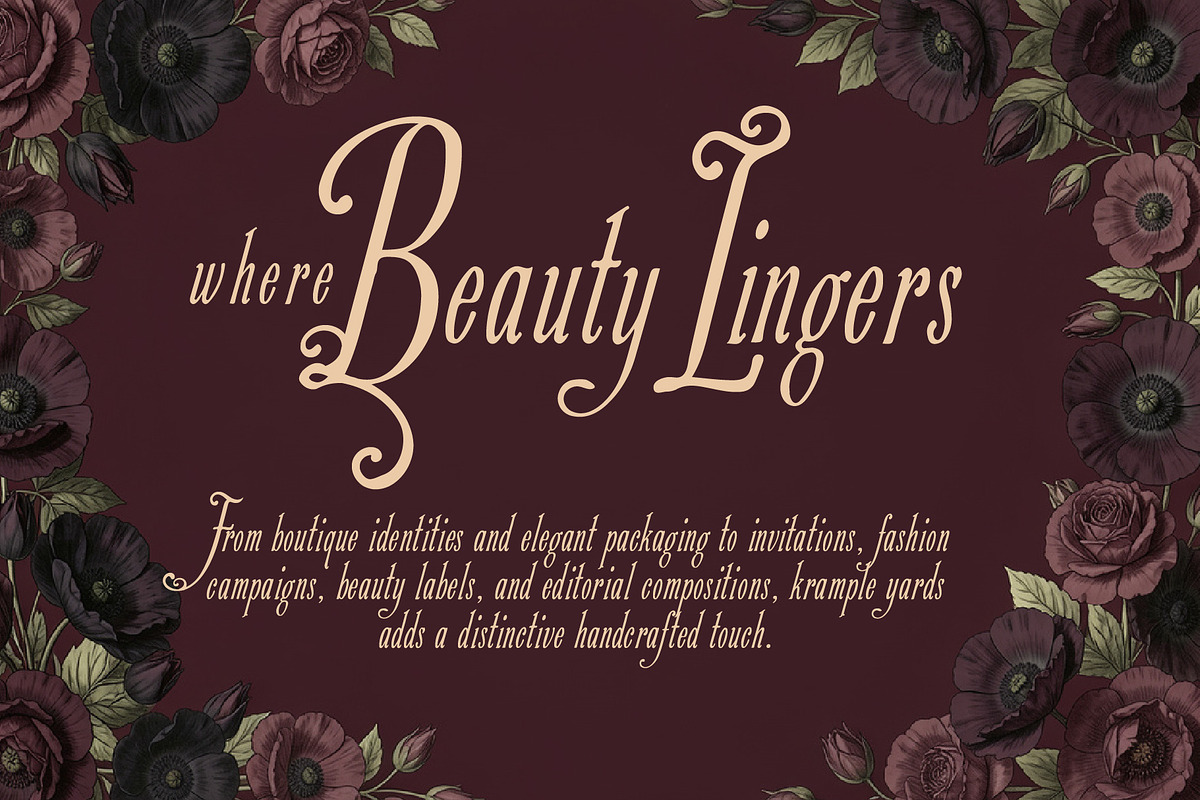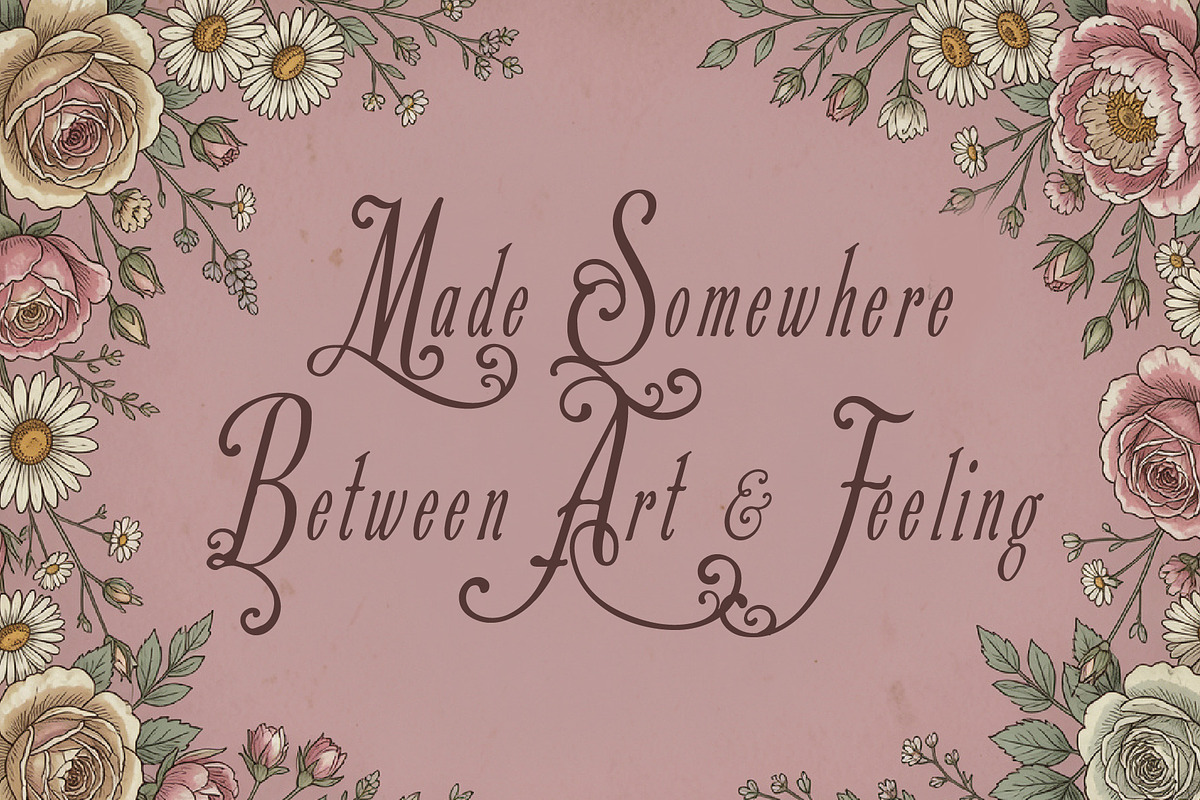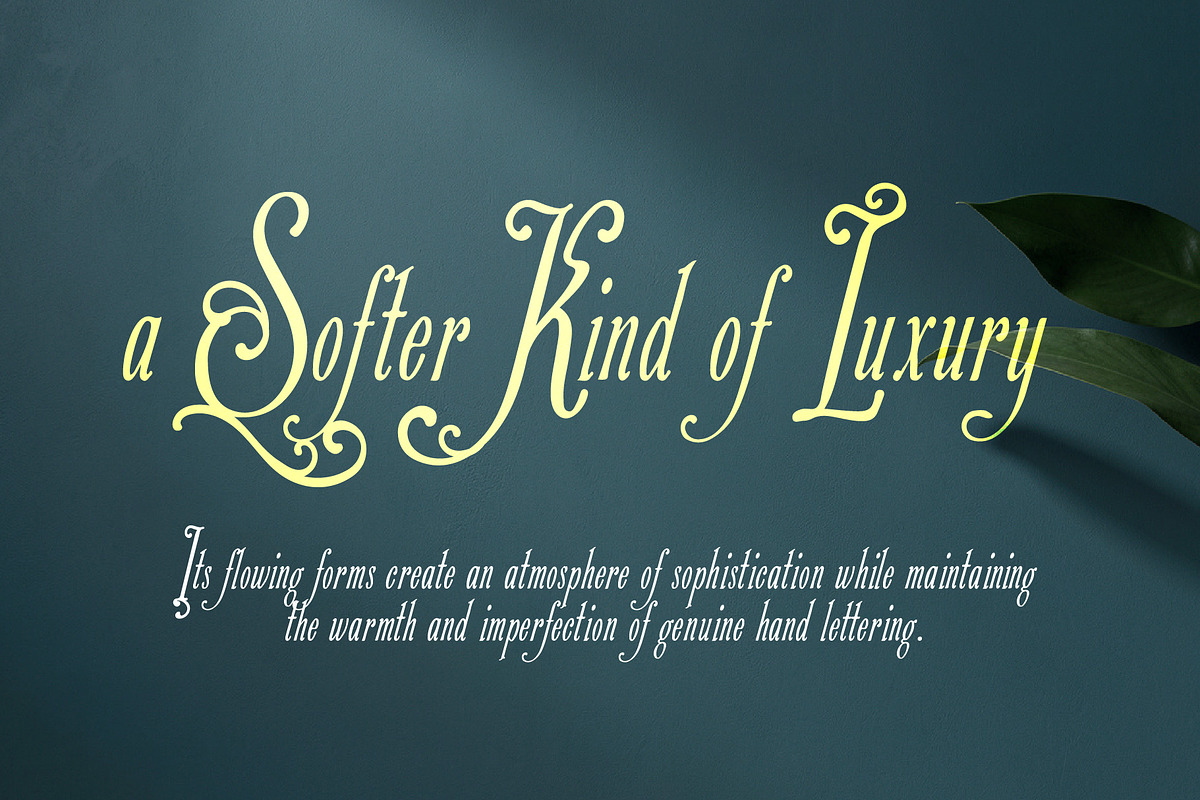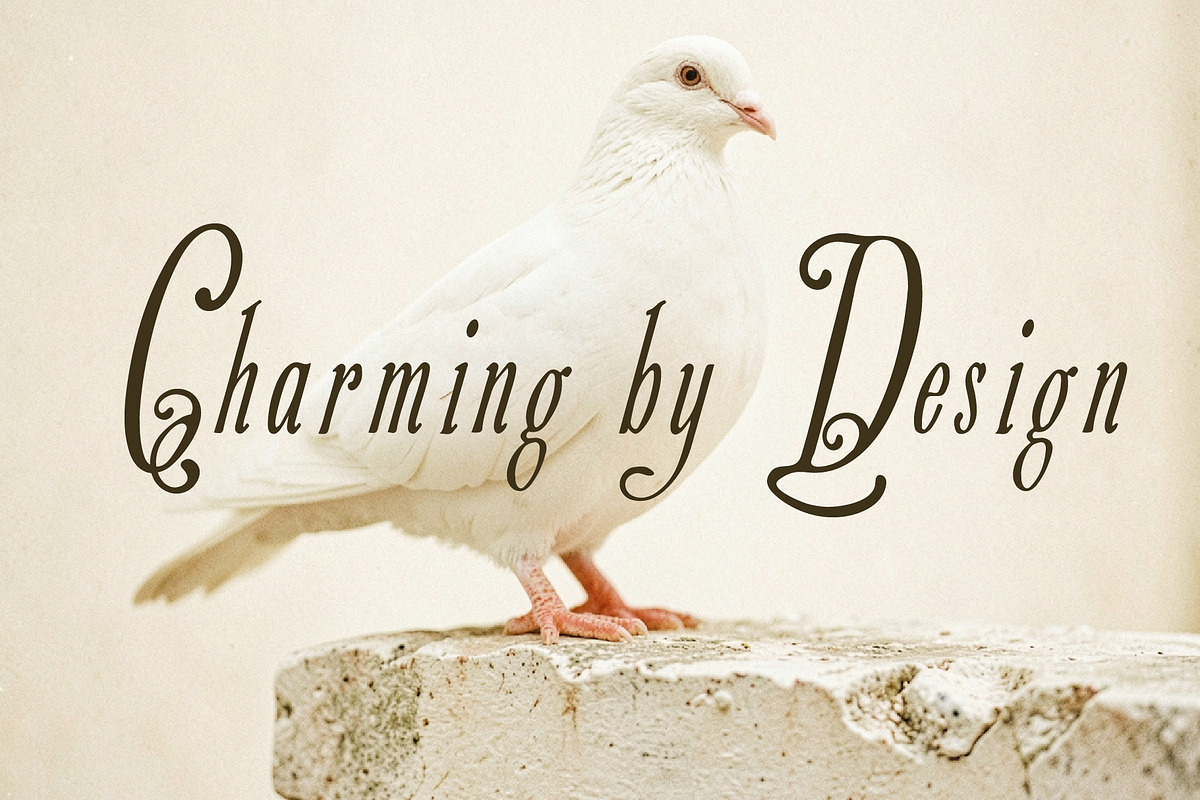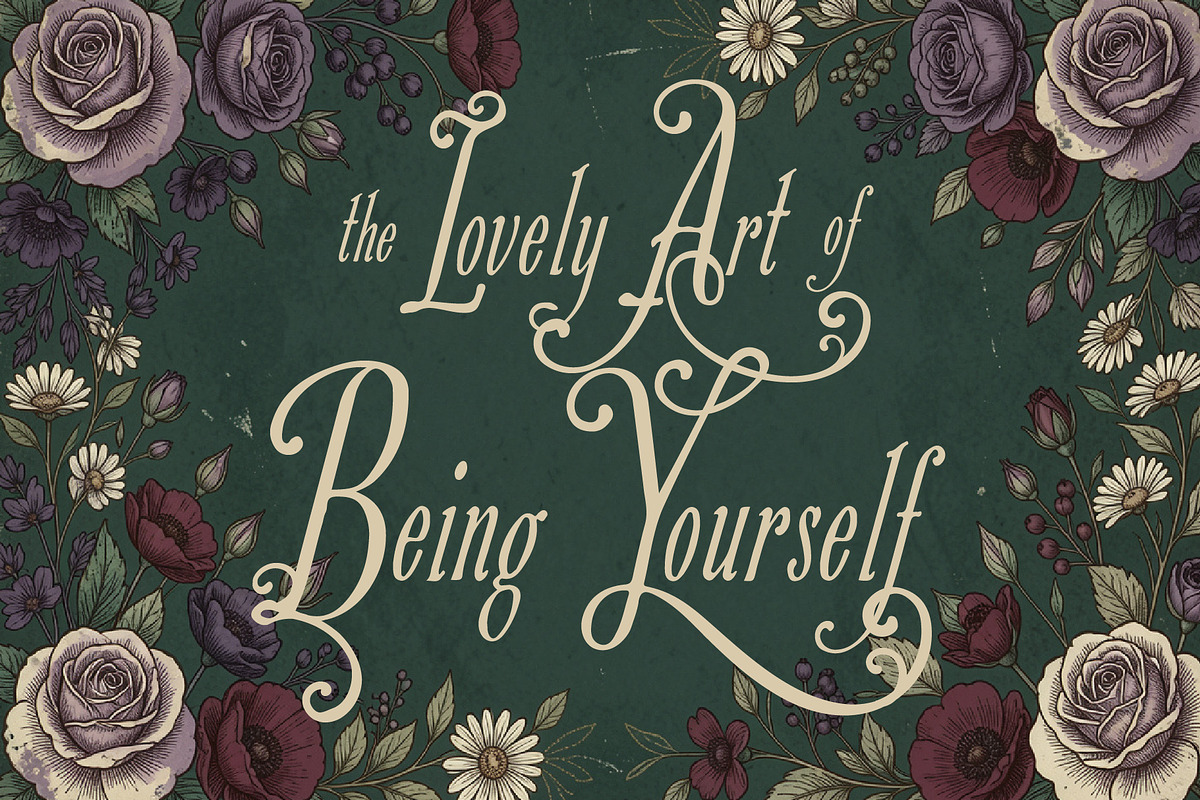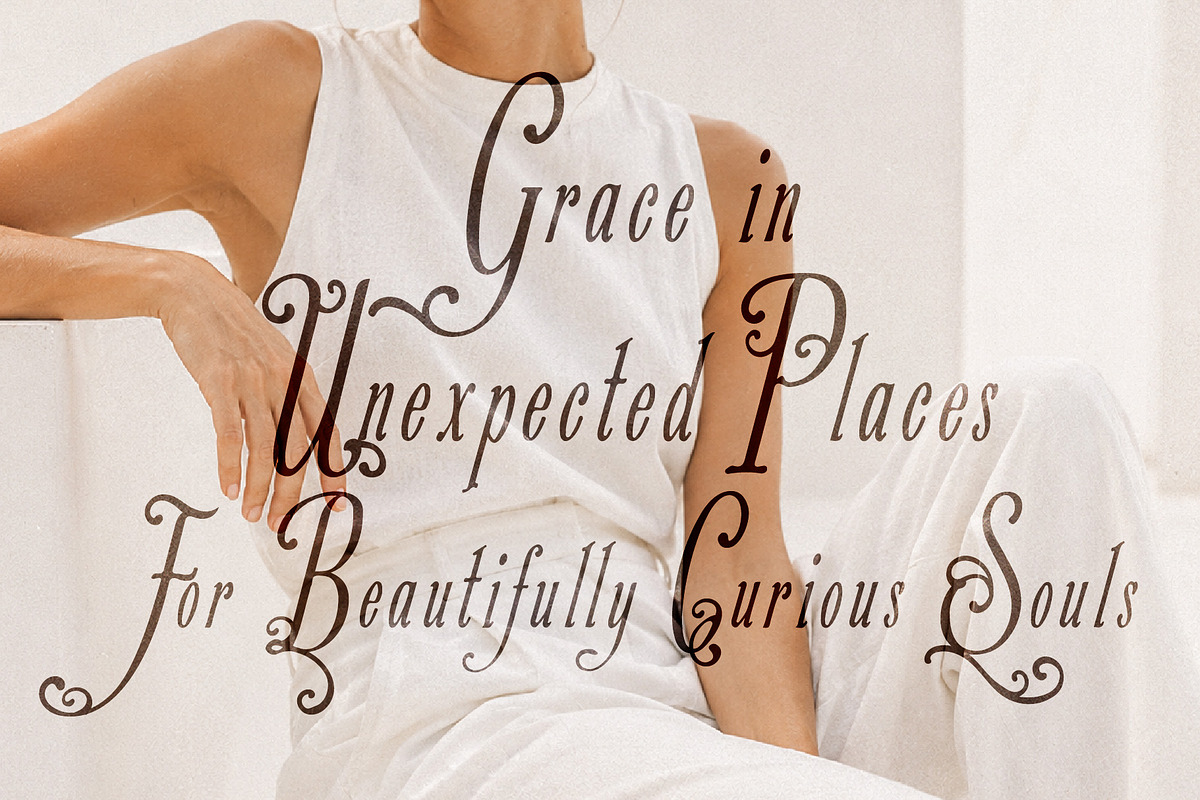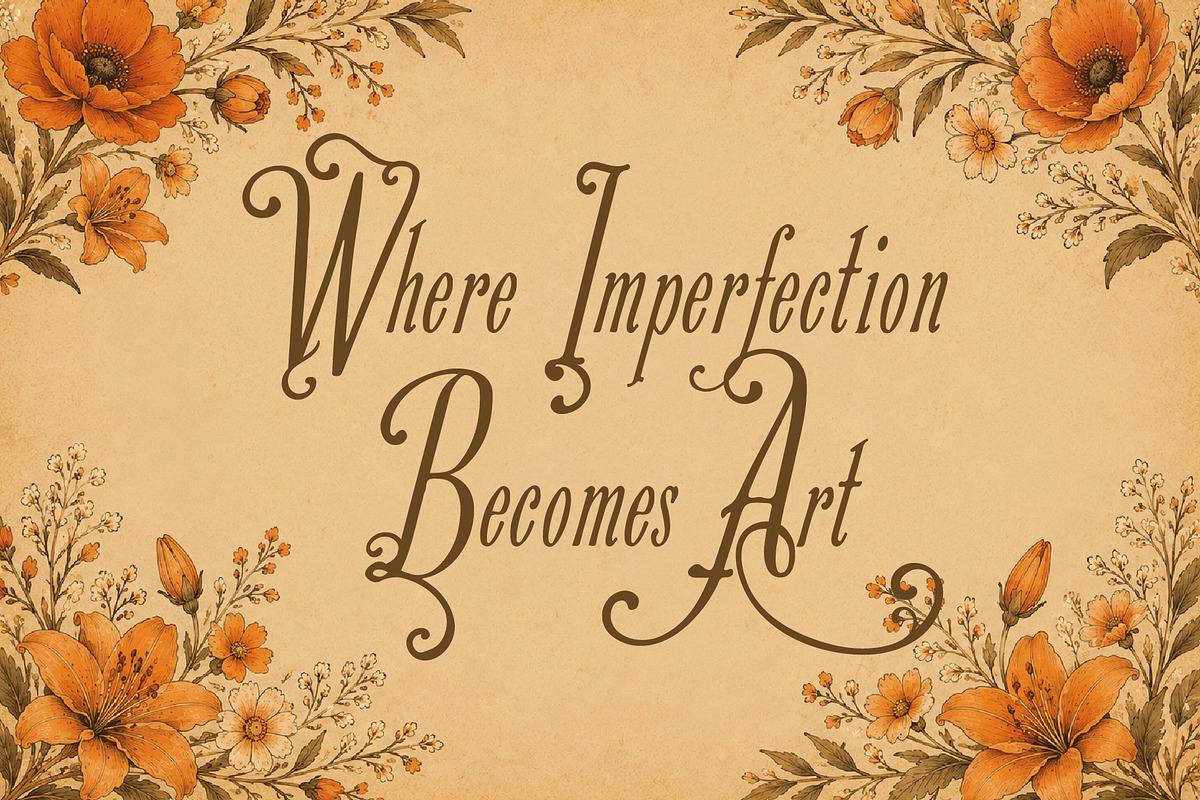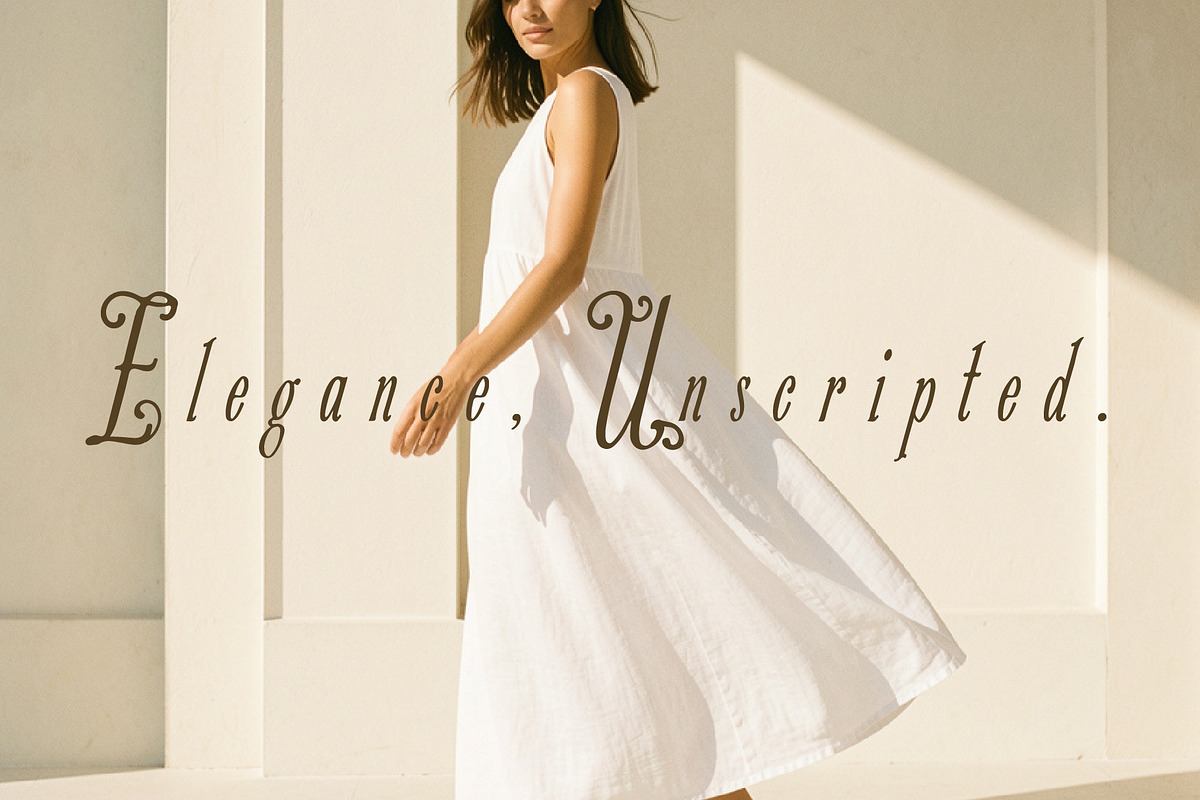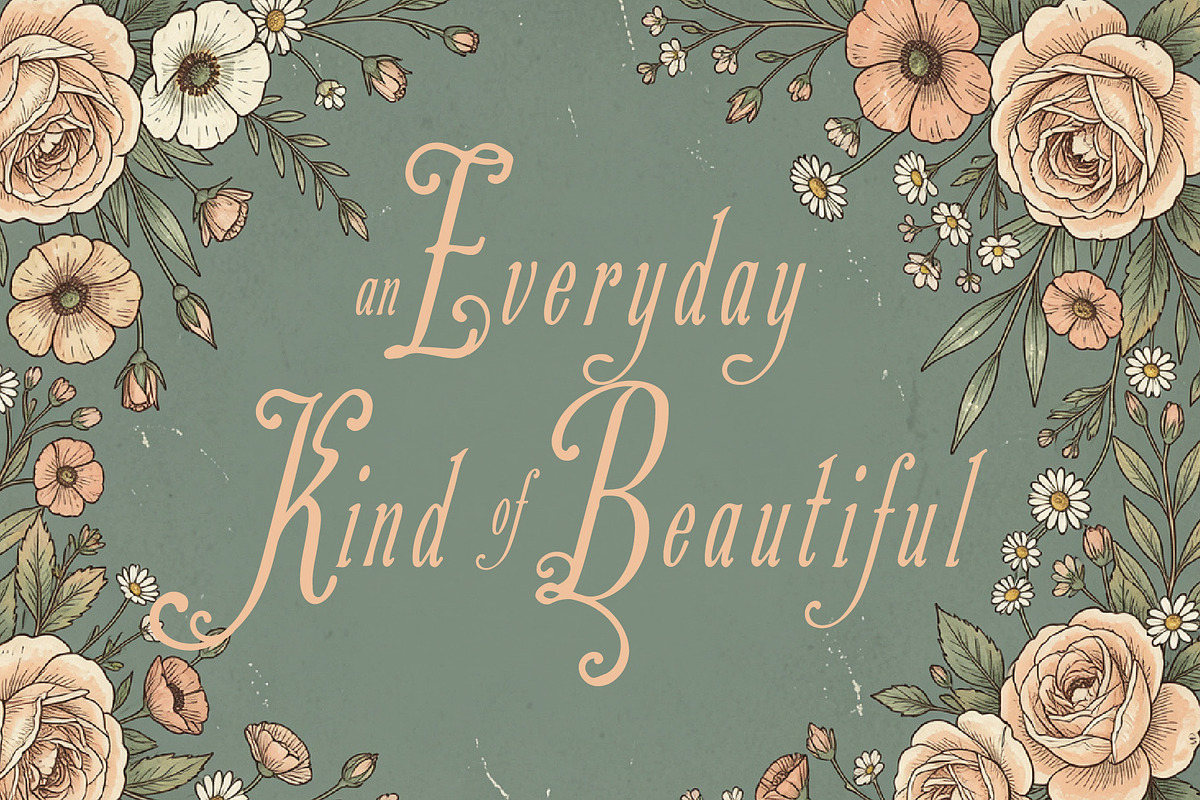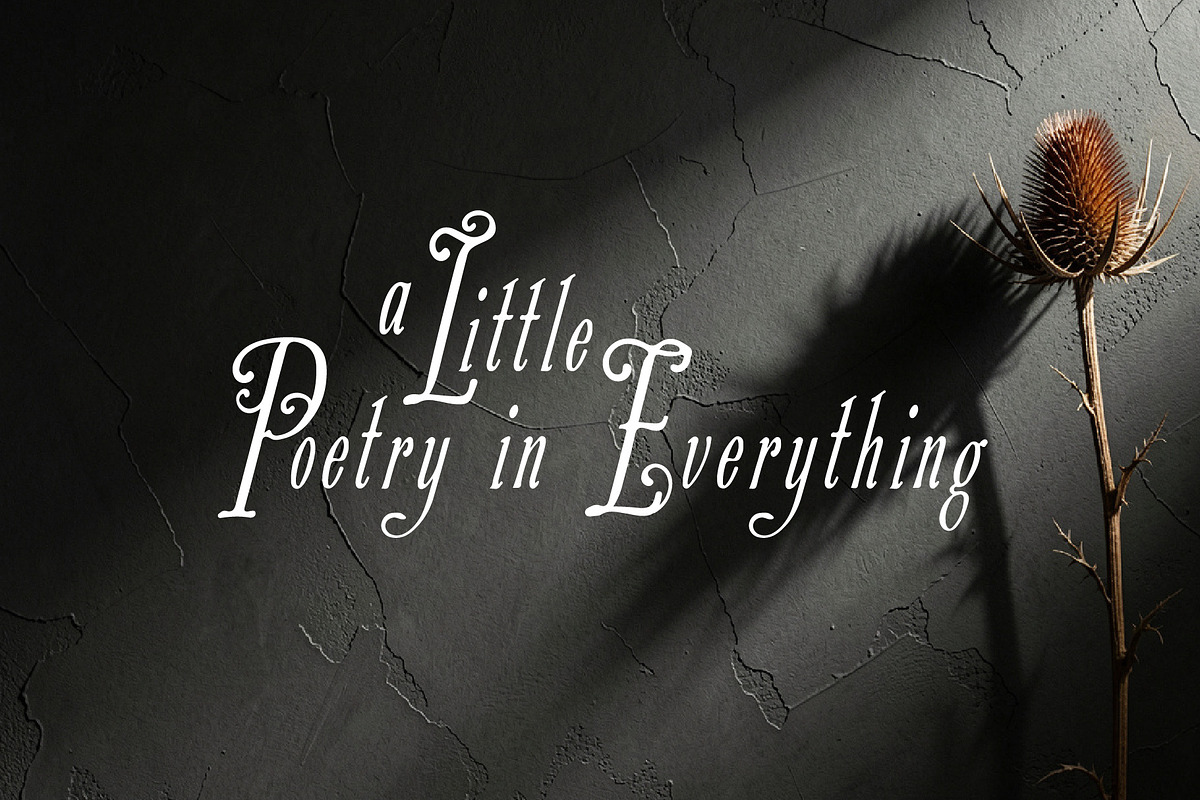
Krample Yards - Artisanal Soul
Krample Yards is a hand drawn artisan display font created for elegant designs with a distinctive handcrafted soul. Featuring graceful calligraphic curves, expressive swashes, decorative flourishes, and beautifully irregular strokes, it brings a premium yet personal character to every word.
Inspired by traditional lettering and refined artisan craftsmanship, Krample Yards balances vintage elegance with contemporary decorative style. Perfect for logos, boutique branding, packaging, wedding invitations, stationery, fashion labels, beauty products, editorial designs, quotes, posters, and luxurious decorative typography.
Its dramatic uppercase forms and ornamental details make it especially striking for short phrases, names, headlines, and statement lettering where personality and elegance need to stand out.